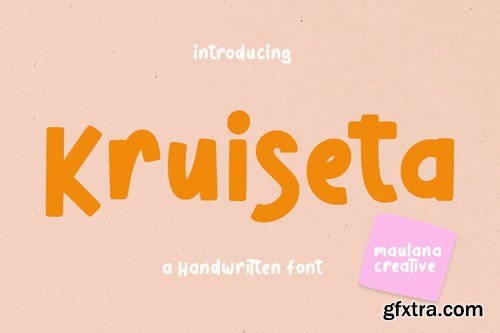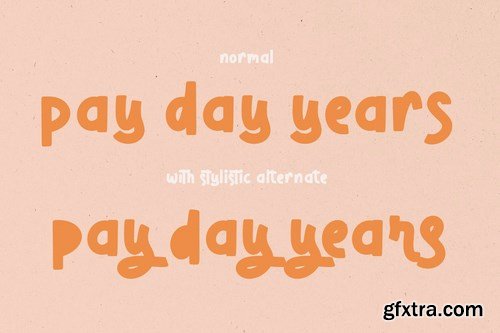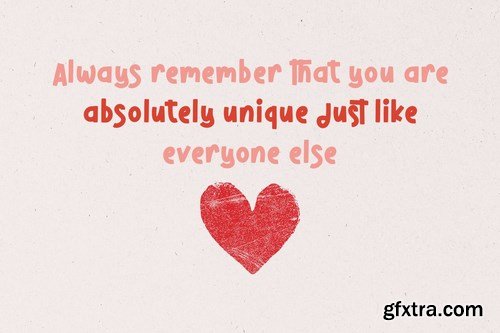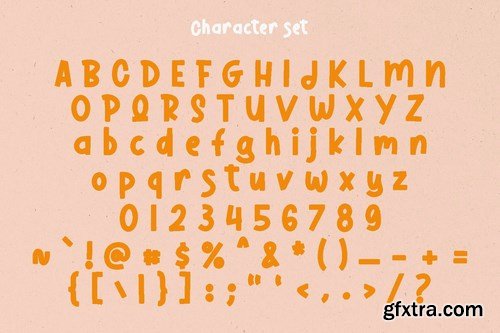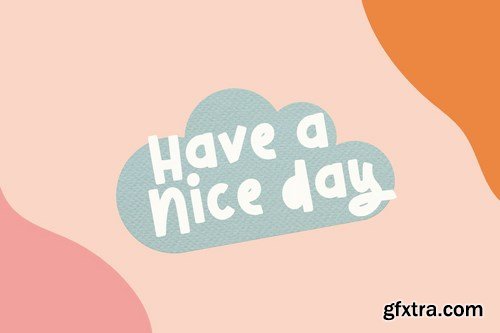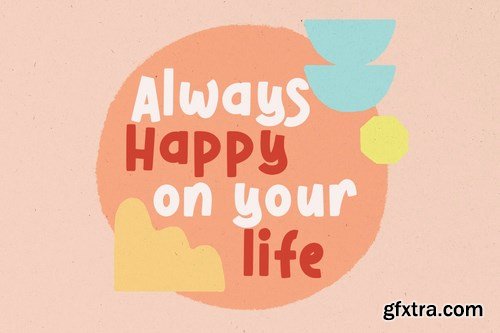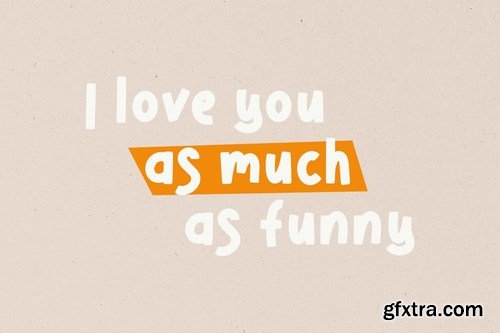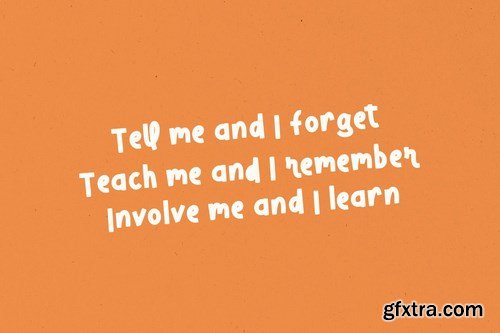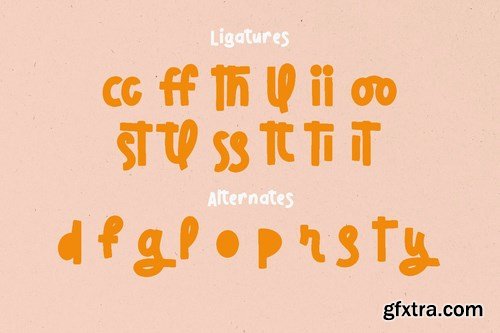
十字架手写显示字体
Kruiseta is a fun handwritten sans display font. With bold stroke, fun character with a bit of ligatures and alternates. To give you an extra creative work. Kruiseta font support multilingual more than 100+ language. This font is good for logo design, Social media, Movie Titles, Books Titles, a short text even a long text letter and good for your secondary text font with sans or serif. Make a stunning work with Kruiseta font.